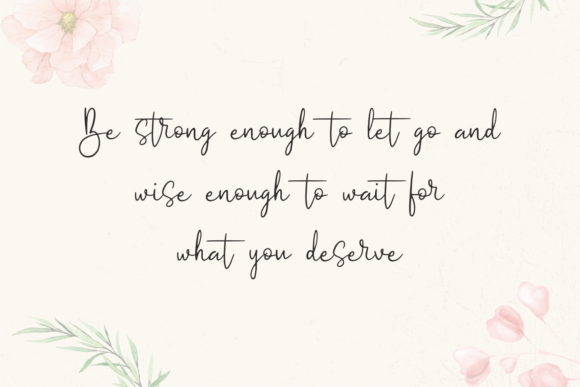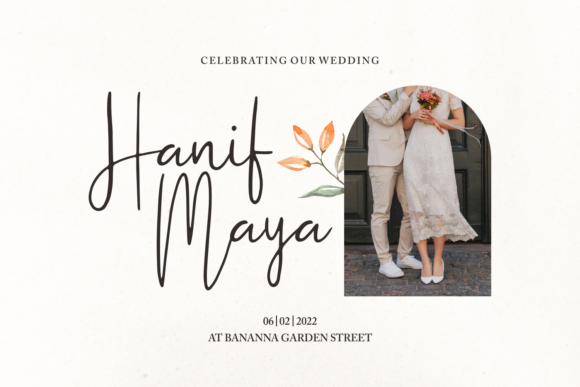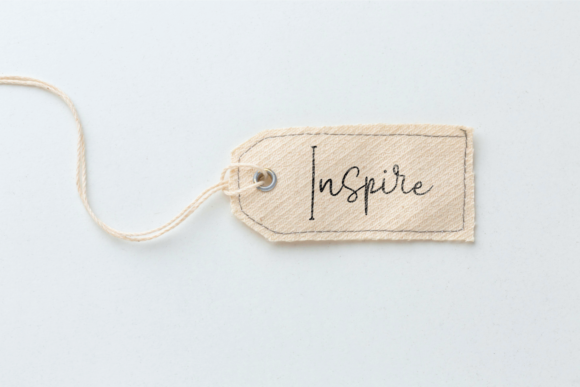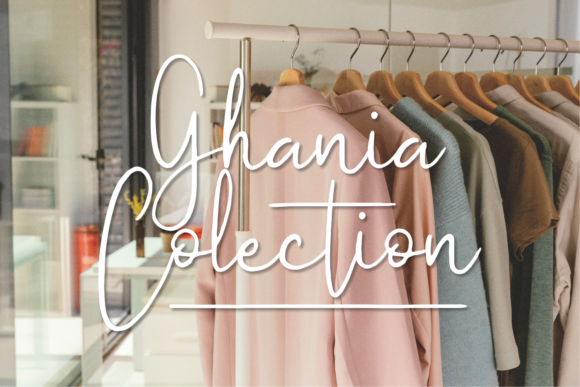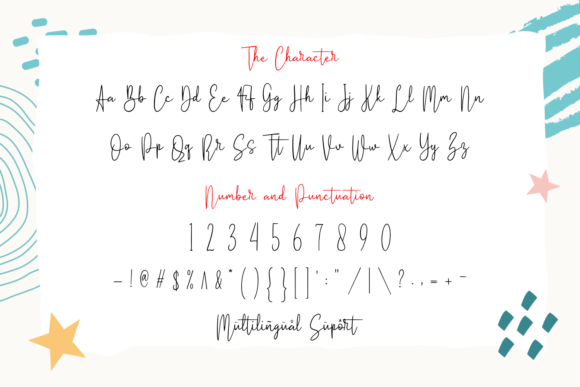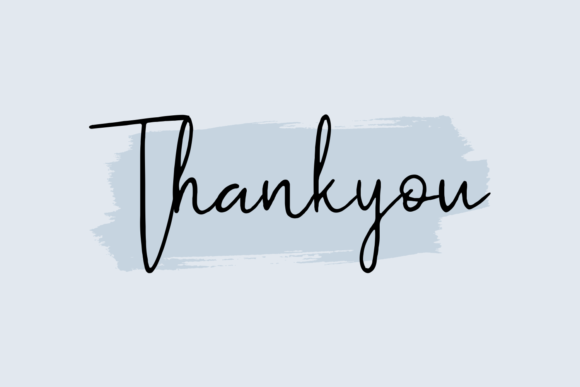
Bantublesh Font: Elevate Your Design with Elegance and Flair
In the world of typography, a font can make or break a design. It’s the perfect blend of style, elegance, and personality that can elevate a project from ordinary to extraordinary. If you’re a designer, craft, or simply someone who appreciates the art of beautiful typography, then you’re in for a treat. Introducing Bantublesh, a fancy and elegant handwritten font that’s sure to impress your audience and make your branding shine.
The Unique Charm of Bantublesh
Bantublesh is more than just a font; it’s an experience. With its unique and beautiful touch, every letter is carefully crafted to make your design come alive. This stunning handwritten font is perfect for a variety of applications, including headings, logos, ads, printed quotes, packaging, and even your website or social media branding. Whether you’re working on a personal project or a client’s, Bantublesh is sure to add that extra special something that sets it apart.
Endless Possibilities with Bantublesh
One of the best things about Bantublesh is its versatility. This elegant font can be used in a multitude of ways, making it an excellent addition to any designer’s toolkit. Here are just a few ideas to get you started:
- Headings and Titles: Add a touch of sophistication to your blog posts, articles, or website with Bantublesh. Its elegant flair is sure to grab attention and draw readers in.
- Logos and Branding: Create a lasting impression with a custom logo or branding that showcases your personality and style. Bantublesh is perfect for crafting unique and memorable brand identities.
- Ads and Marketing Materials: Stand out from the crowd with eye-catching ads and marketing materials that feature Bantublesh. Its elegant charm is sure to resonate with your target audience.
- Printed Quotes and Art: Add a touch of elegance to your printed quotes, posters, or art with Bantublesh. Its beautiful lettering is sure to inspire and uplift.
- Packaging and Product Design: Elevate your product design with Bantublesh. Its unique charm is sure to make your products stand out on store shelves.
Why Choose Bantublesh?
With so many fonts to choose from, why settle on Bantublesh? Here are just a few reasons why designers and crafters alike are falling in love with this elegant handwritten font:
- Unique and Beautiful: Every letter in Bantublesh has a unique and beautiful touch that will make your design come alive.
- Elegant and Sophisticated: Bantublesh exudes elegance and sophistication, making it perfect for high-end branding and design projects.
- Versatile: Bantublesh can be used in a variety of applications, from headings and logos to ads and packaging.
- Easy to Read: Despite its elegant flair, Bantublesh remains easy to read, making it perfect for body text and captions.
Get Ready to Make Your Projects Dance with Bantublesh
In conclusion, Bantublesh is a fancy and elegant handwritten font that’s perfect for designers, crafters, and anyone who appreciates the art of beautiful typography. Its unique charm, versatility, and beautiful lettering make it an excellent addition to any designer’s toolkit. Whether you’re working on a personal project or a client’s, Bantublesh is sure to add that extra special something that sets it apart.